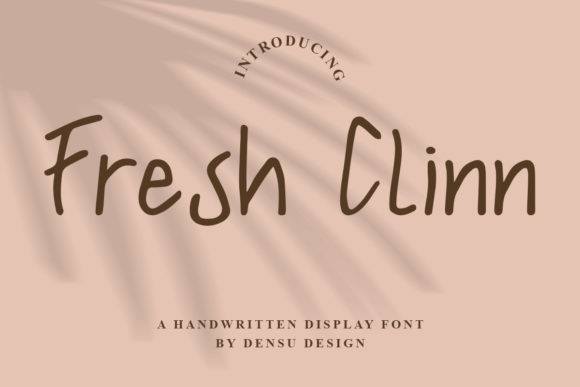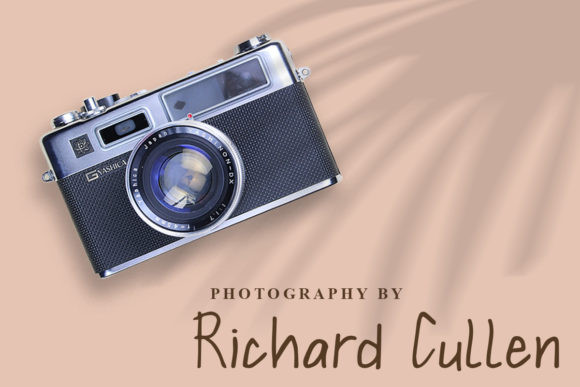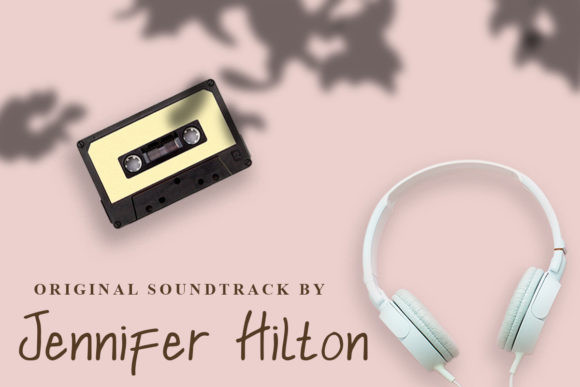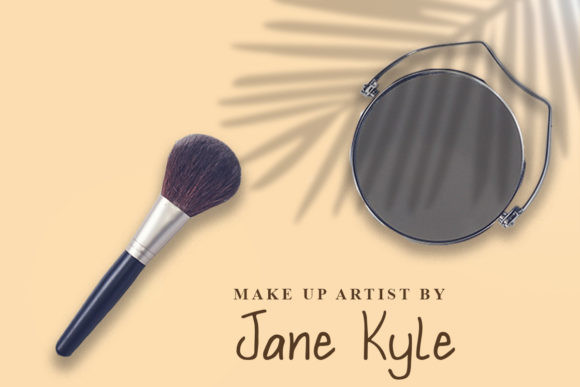
Fresh Clinn Font
Fresh Clinn is a beautiful display font with a sense of playfulness. It’s easy-going and simple, and perfectly suited for delivering any message with a relaxed, casual vibe.